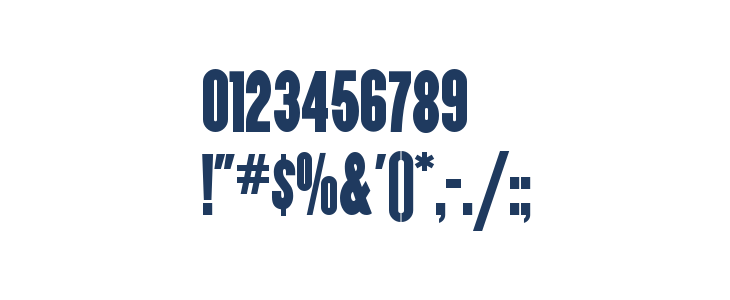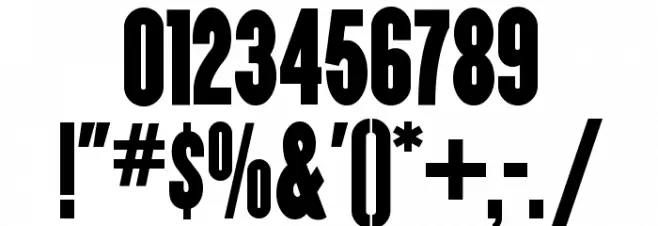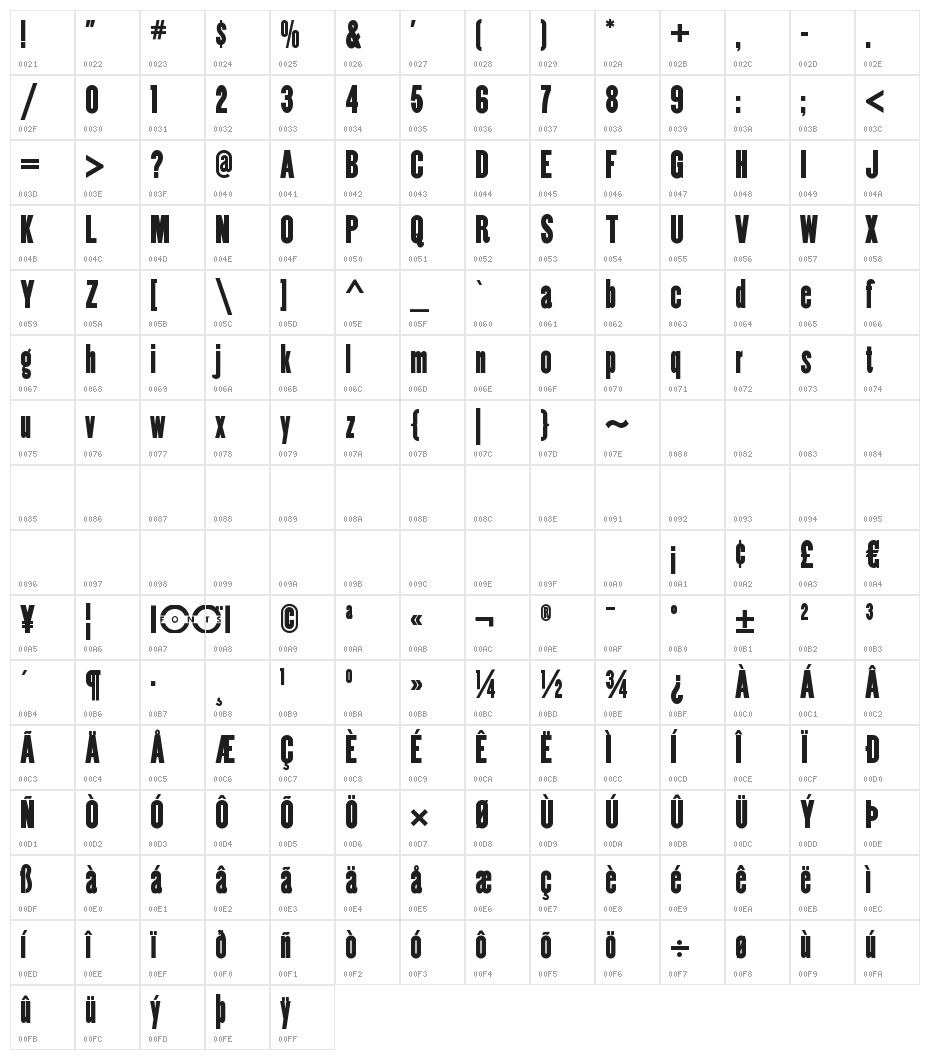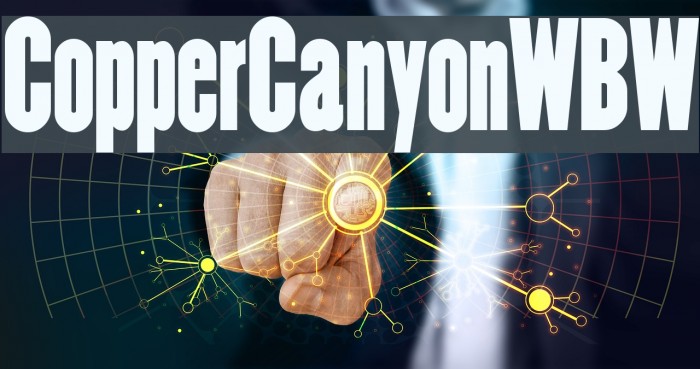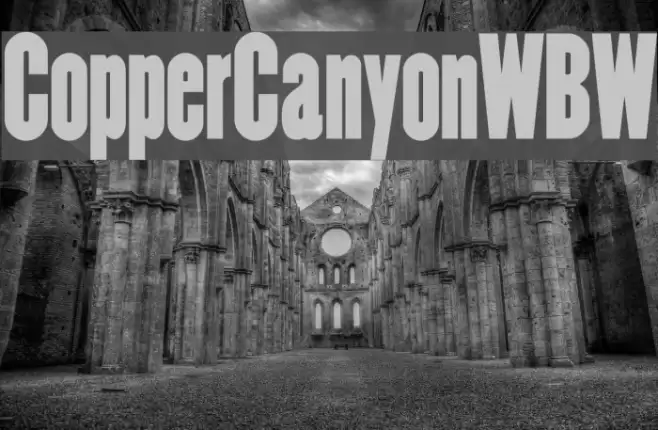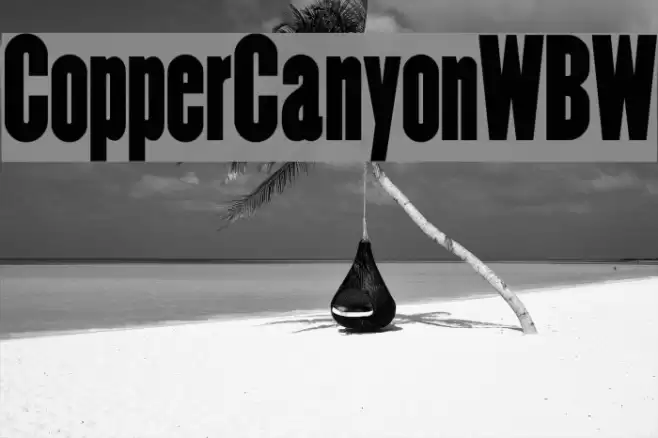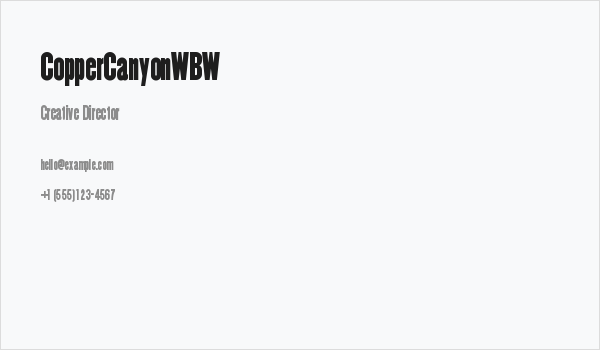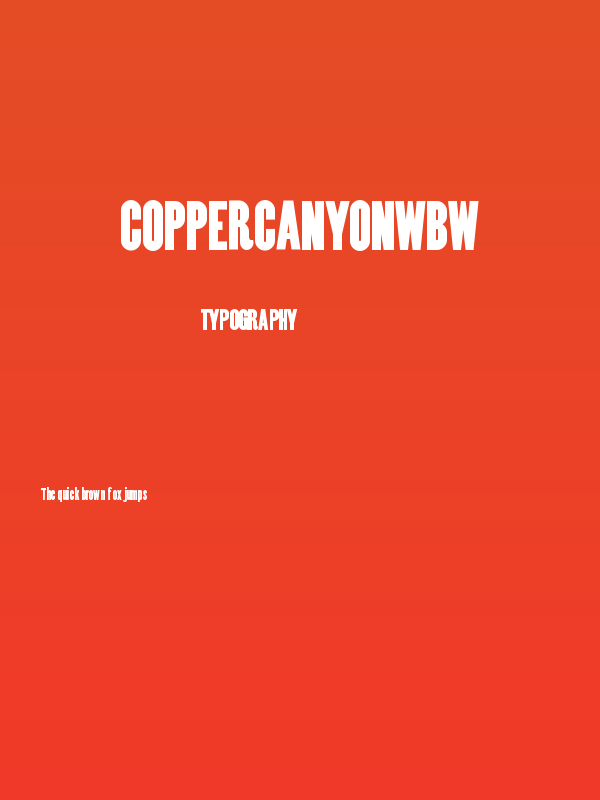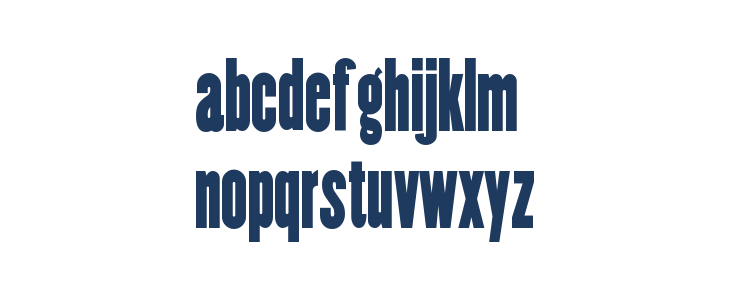
CopperCanyonWBW Font
CopperCanyonWBW Description
This font features a bold and impactful design with thick, uniform strokes that create a strong visual presence. The characters are tightly spaced, enhancing the compact and dense appearance. The uppercase letters are particularly striking, with a consistent height and width that convey a sense of stability and strength. The lowercase letters maintain the same boldness, ensuring readability while preserving the overall aesthetic. The numerals are equally robust, making them suitable for attention-grabbing displays. The special characters are designed to match the bold style, ensuring consistency across all elements. This font is ideal for projects that require a commanding and assertive typeface.